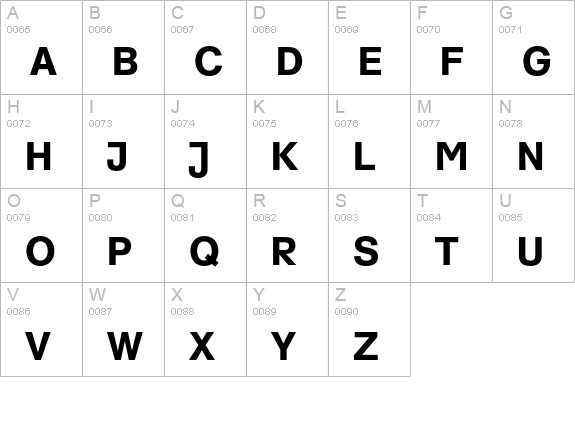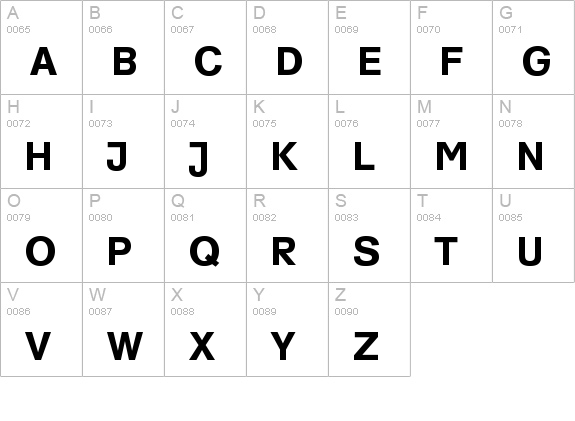
AG Schoolbook Medium Font Details
AG Schoolbook Medium is a balanced, medium-weight variant in the AG typeface family \xE2\x80\x94 well suited to sub-headlines, navigation, and balanced editorial work.
AG Schoolbook Medium is a classic and versatile font that strikes the perfect balance between readability and style. Its clean lines and moderate stroke contrast make it ideal for use in educational materials, textbooks, and professional documents. The medium weight of this font adds a touch of sophistication without sacrificing legibility. What's more, AG Schoolbook Medium is available for free download at FontsMarket.com. This means you can easily access and use this high-quality font for your projects without any cost. Whether you're designing a school brochure, creating a presentation, or working on a report, AG Schoolbook Medium is a reliable choice that will elevate your work with its timeless appeal. Download it today and see the difference it can make in your designs.